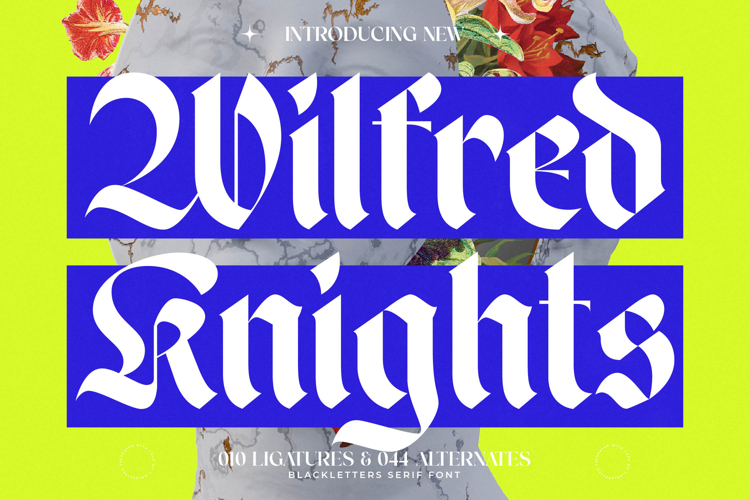
Wilfred Knights - Blackletter Serif Font
Discover the perfect fusion of tradition and modernity with Font Wilfred Knights - Blackletter Serif Font Blackletter. This exceptional typeface redefines the classic blackletter aesthetic, infusing it with a bold, contemporary edge that demands attention. Its powerful presence and distinctive character make it an unparalleled choice for designers seeking to convey both gravitas and modern sophistication in their projects. Elevate your visual communication with this truly unique and impactful font.
Experience meticulous craftsmanship in every curve and serif. Font Wilfred Knights - Blackletter Serif Font Blackletter features striking high-contrast strokes and elegant calligraphic terminals, giving it a luxurious and refined appeal. The inclusion of 010 ligatures and 044 alternate characters offers unparalleled design flexibility, allowing for truly customized and captivating headlines, logos, and intricate textual compositions that stand out.
Unlock global potential with a typeface built for worldwide reach. With its extensive multilingual support, Font Wilfred Knights - Blackletter Serif Font Blackletter adapts seamlessly across global markets, making it incredibly versatile for international projects. Ensure your brand speaks universally, maintaining its distinctive elegance and brand consistency no matter the language, making it ideal for diverse, cross-cultural applications.
Perfect for projects demanding both authority and artistic flair, Font Wilfred Knights - Blackletter Serif Font Blackletter is an essential asset for luxury branding, high-end packaging, and editorial design. It excels in creating impactful visuals for gaming, music art, apparel, and exclusive event invitations. Choose this font to leave a truly memorable impression and unequivocally elevate design in any creative endeavor.